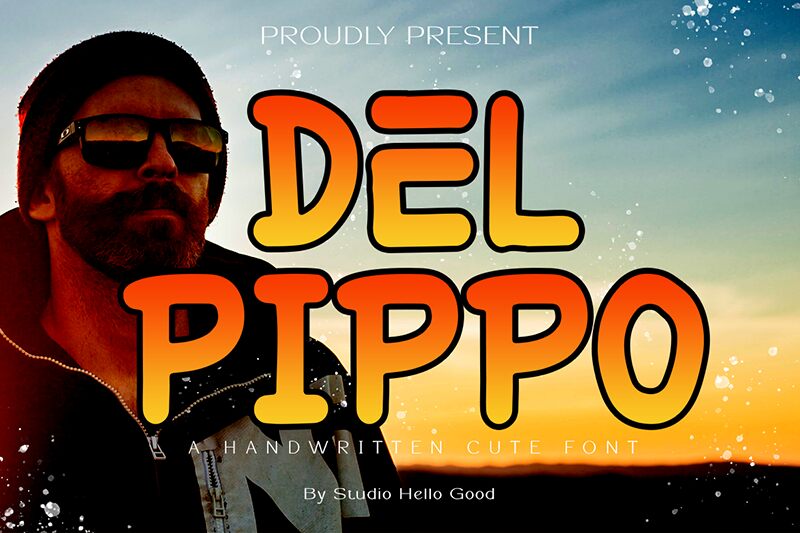
DEL PIPPO
Del pippo font by Studio Hello Good is a bold cartoon display font with a modern and informal appearance. Its rounded and friendly design feels approachable while carrying a subtle retro influence. As Del pippo prioritizes fun, it’s best used on projects that need such vibes to attract the audience.
Combining everything, this free hand-made style font is designed for logo making, posters, headings, branding projects, book covers and interiors, video game or app interfaces or icons, social media posts and covers among others. Don’t hesitate to have fun with its amazing letters!